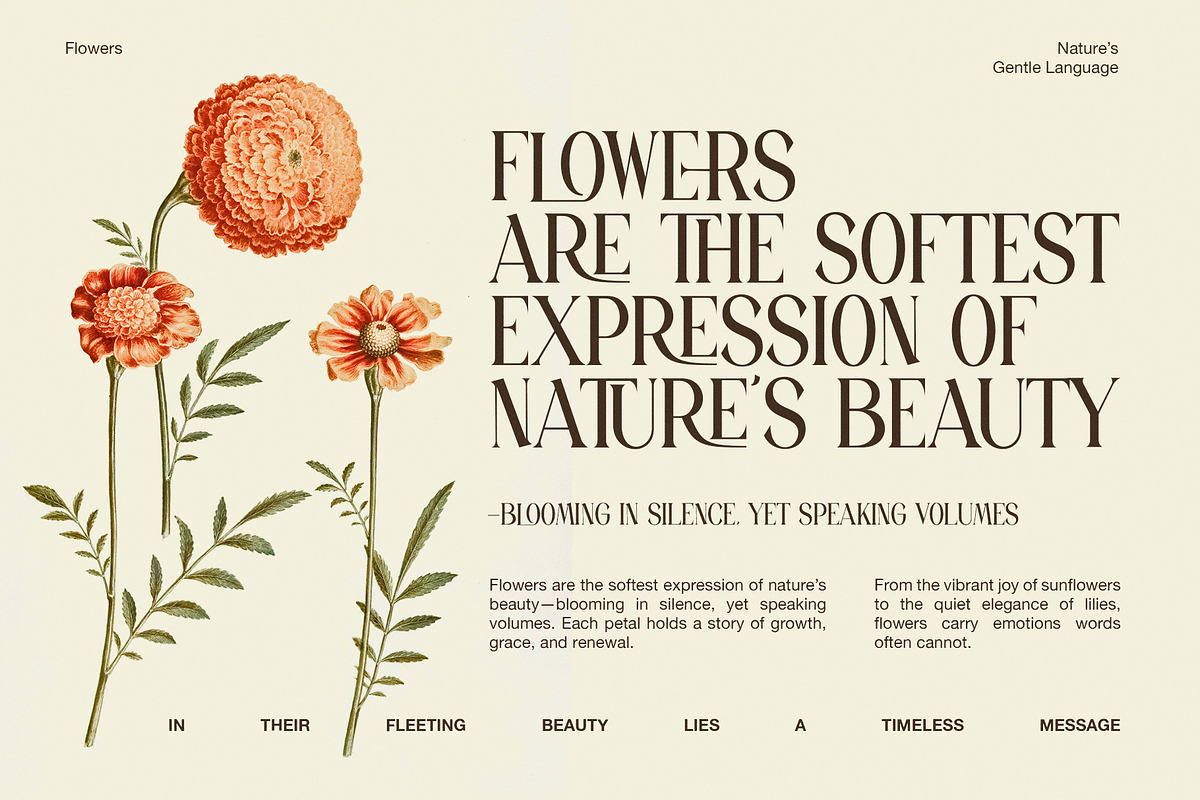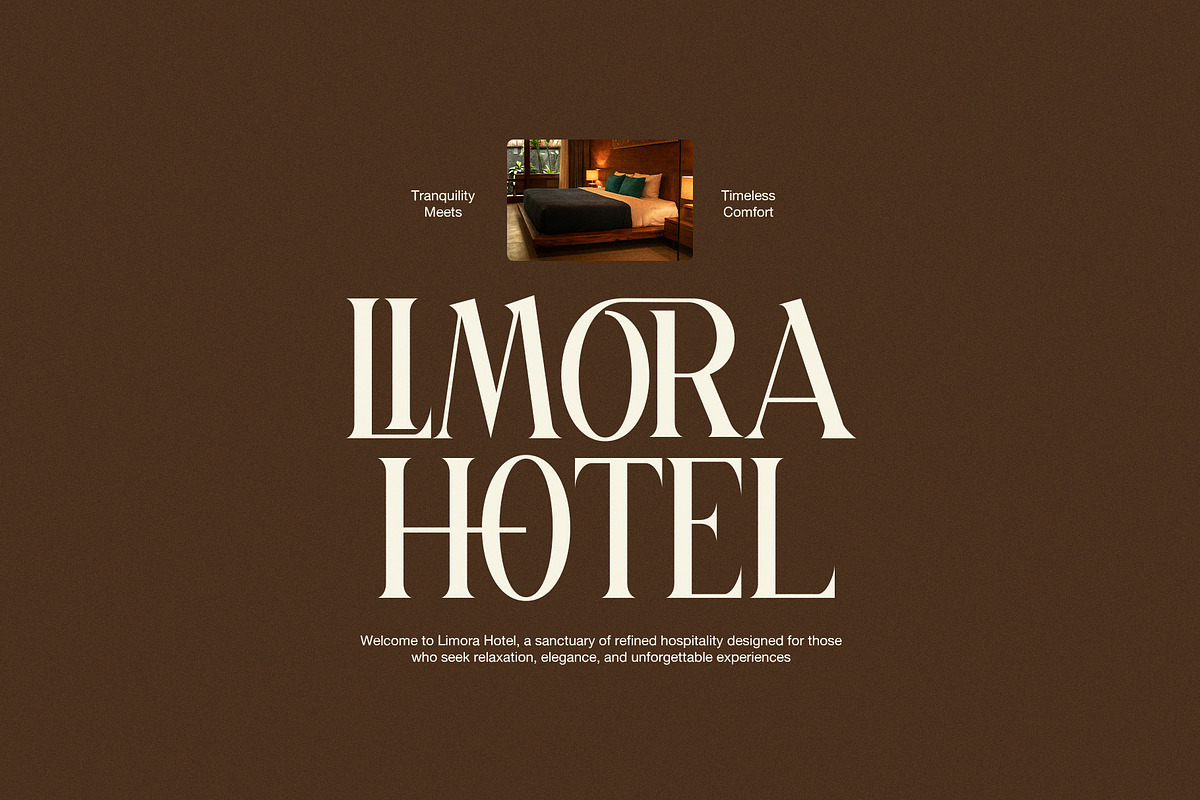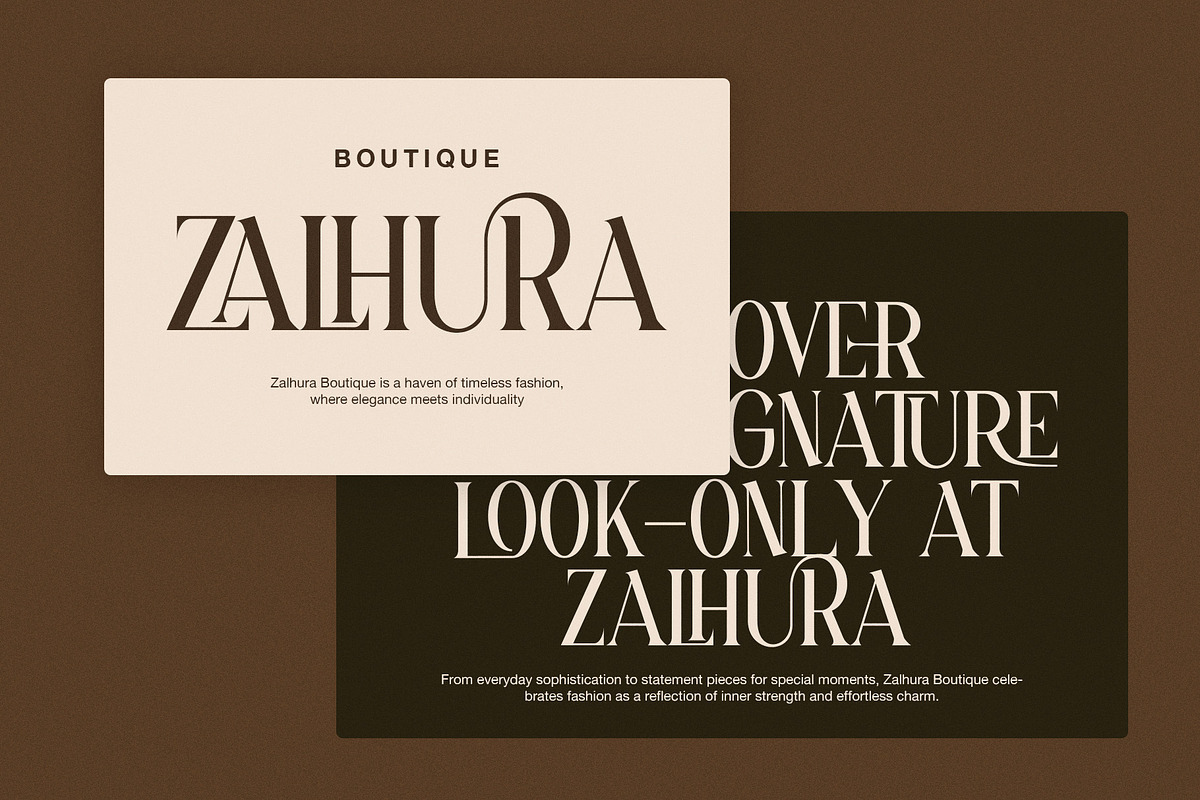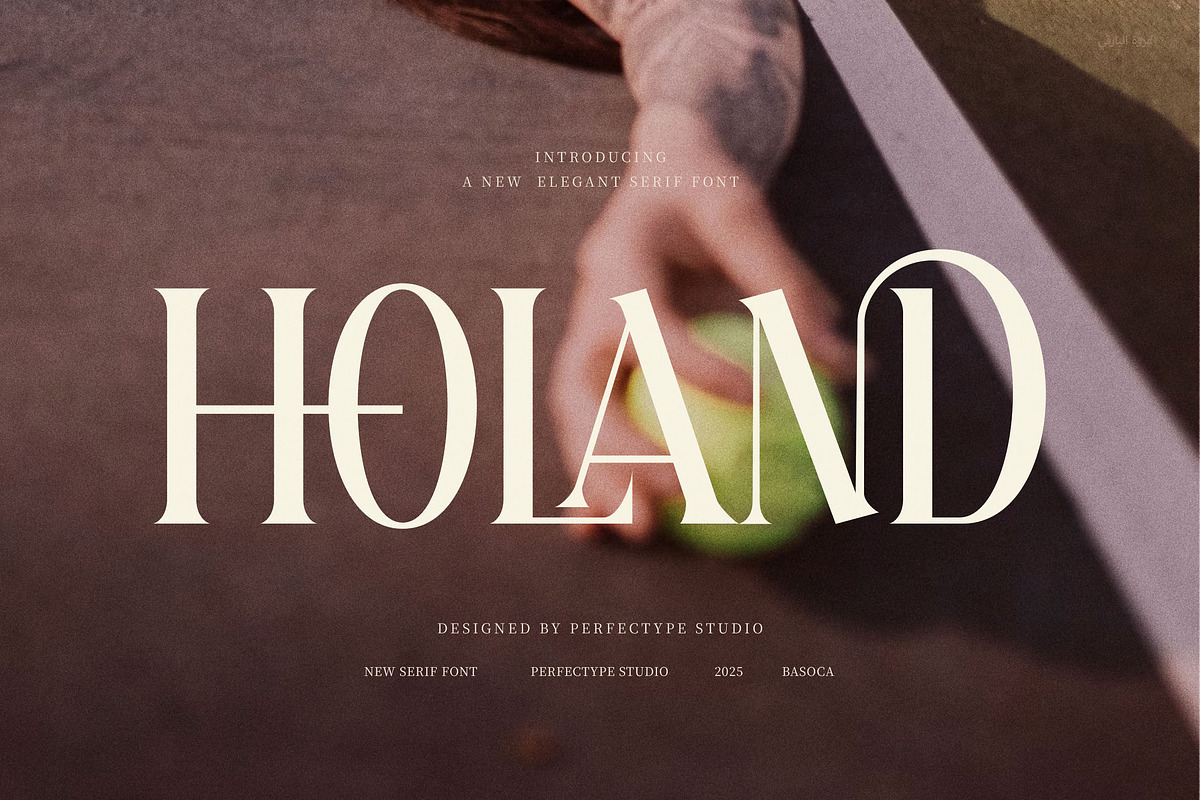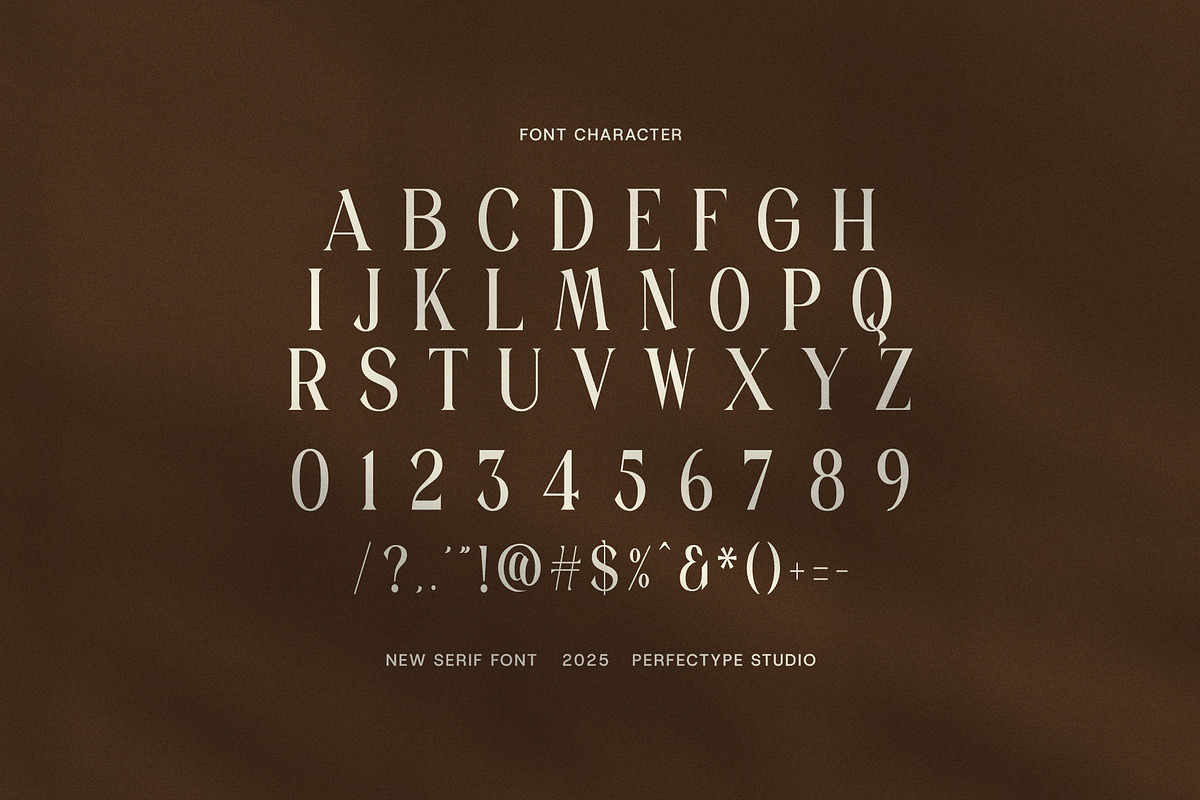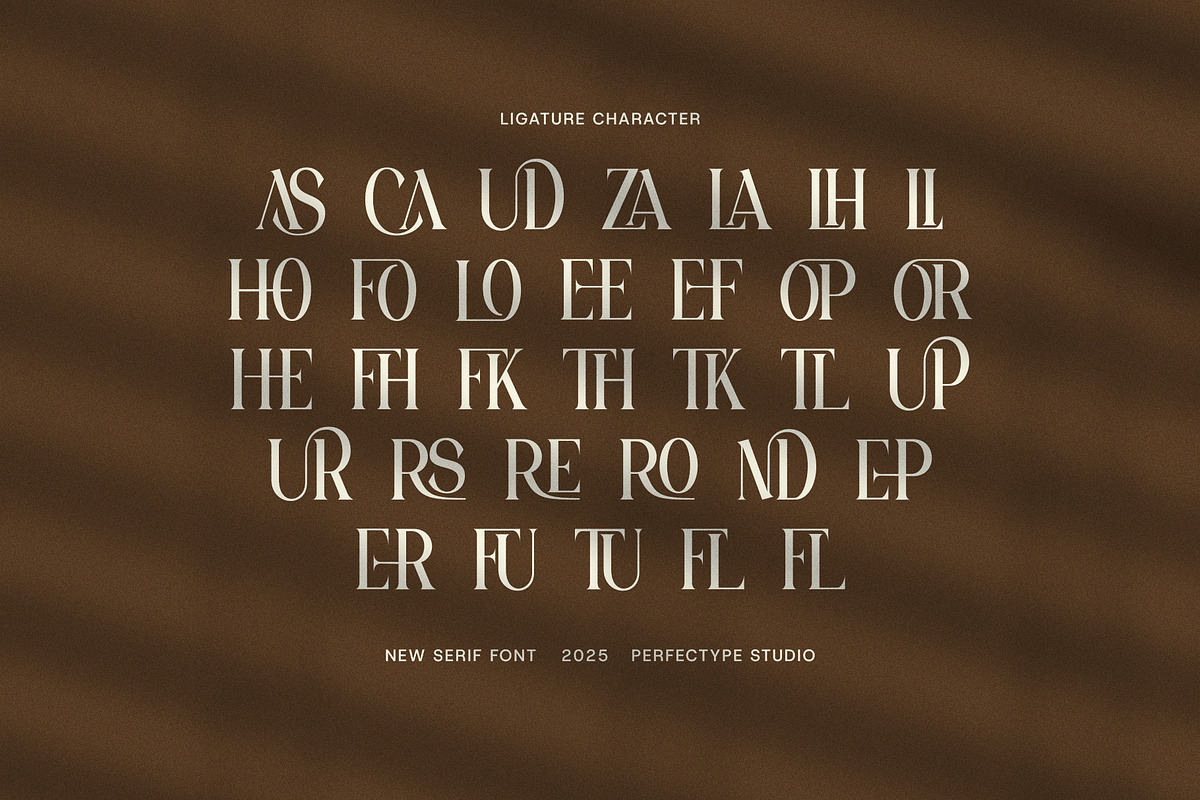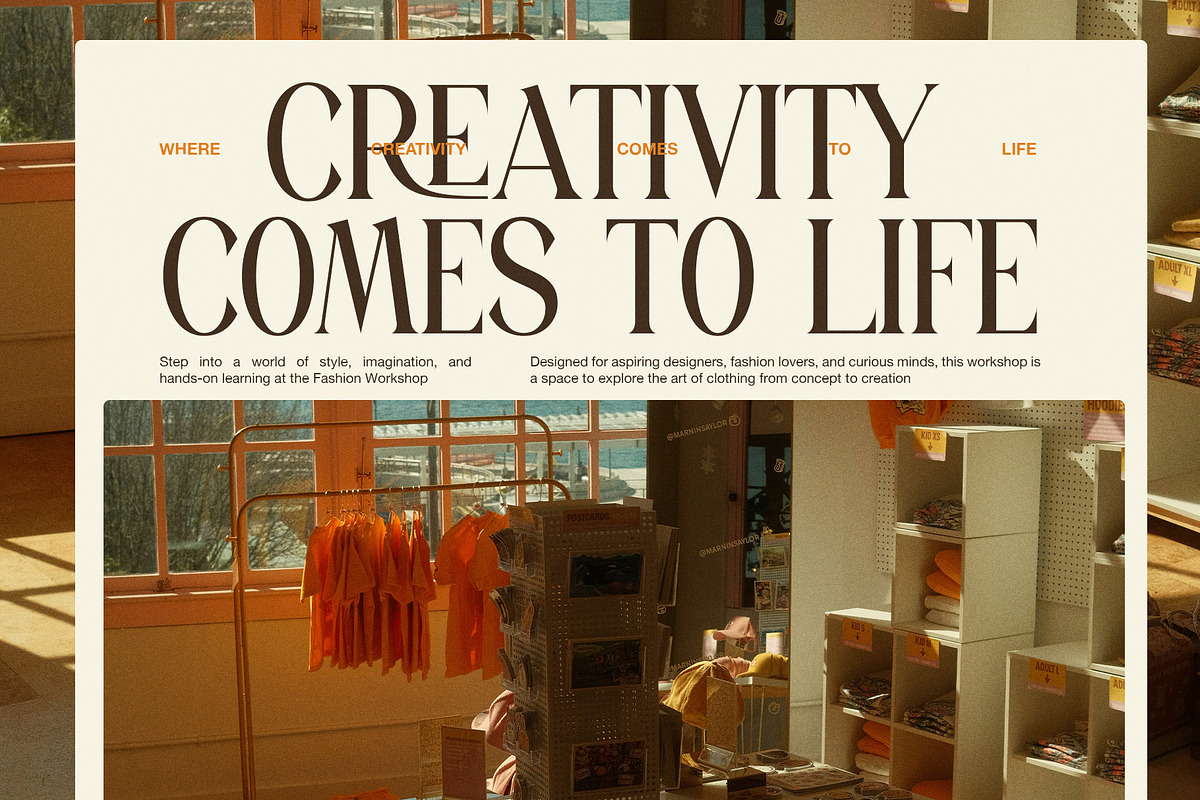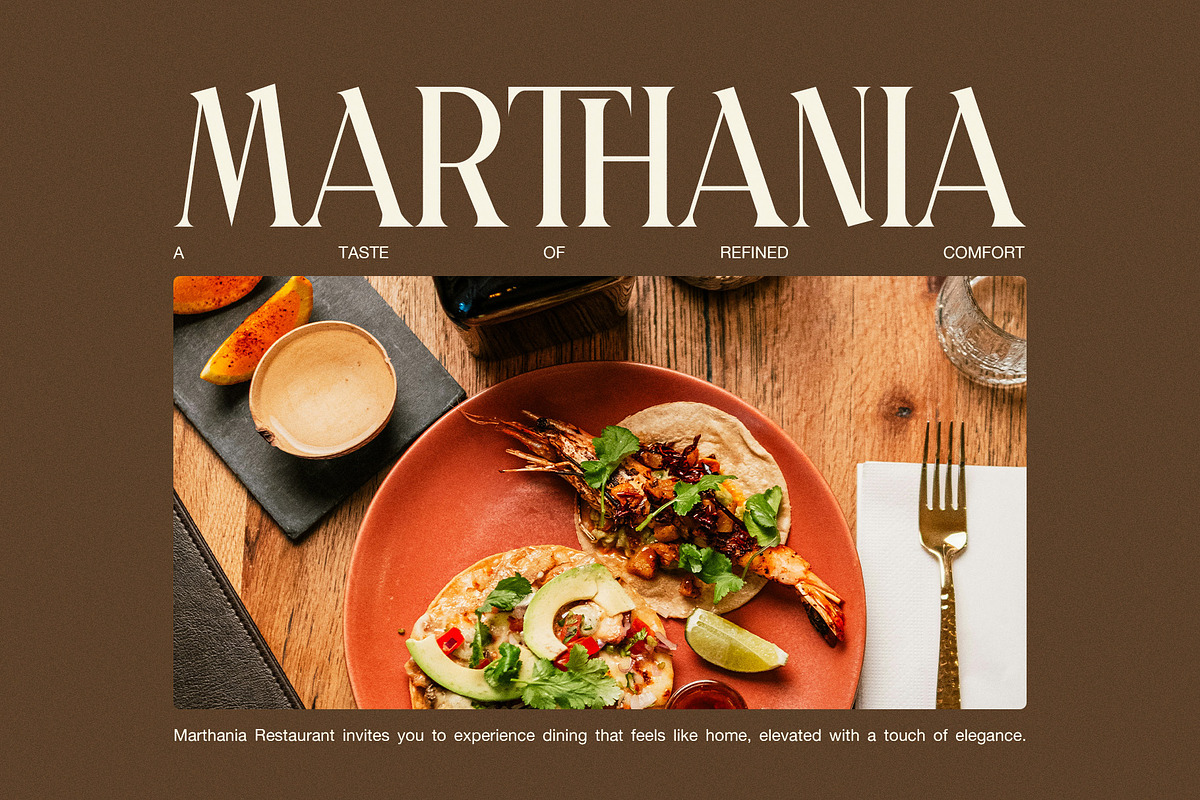
Holand Elegant Serif Font
Holand Elegant Serif Font is a sleek, modern serif typeface designed to bring a luxurious and polished look to your creative work. With clean lines and proportional letterforms, Holand is crafted to meet a wide variety of branding and visual identity needs.
This font seamlessly combines elegance and functionality. It features a refined serif structure with stylish ligatures that enhance readability while adding character and sophistication to every design. Whether you're designing a high-end brand, a fashion-forward magazine spread, or a stylish website header, Holand makes an unforgettable statement.
Holand is especially effective in applications such as logos, brand identities, editorial layouts, advertisements, product packaging, and boutique branding. Its versatility ensures that it performs just as beautifully in digital interfaces as it does in print media.
Why Designers Choose Holand:
Modern serif font with timeless elegance
Beautiful ligatures for visual harmony
Highly readable across formats and sizes
Ideal for branding, web, print, and packaging
With its bold yet refined appearance, Holand is the ideal serif font for designers who want their work to stand out with class and clarity.